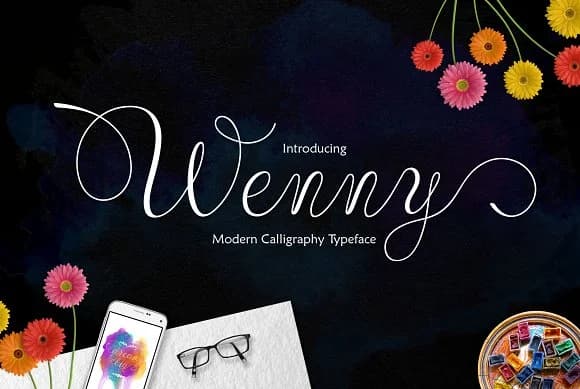
Wenny Script Font by Jamalodin is a flowing handwritten script that captures genuine hand-lettered warmth and approachability. Its organic letterforms work beautifully for designers seeking personality in their typography without sacrificing legibility or elegance. The smooth, natural strokes make this typeface equally at home in sophisticated branding projects and casual creative endeavors, offering flexibility across diverse design contexts. This versatile script excels across numerous applications. Wedding invitation suites benefit from its romantic sensibility, while personalized thank-you cards and boutique packaging showcase its authentic character. Etsy sellers use Wenny Script for product labels and packaging that command attention in crowded digital storefronts. Stationery design, from monogram projects to gallery wall prints, gains immediate character through the typeface's handcrafted quality. Social media graphics, particularly for lifestyle, wellness, and artisanal brands, communicate genuine warmth through its flowing letterforms. Beyond graphics, Wenny Script's compatibility with vinyl cutting machines makes it valuable for DIY crafters working on custom apparel, decorative home signage, and personalized gifts. The clean letter construction ensures precise cuts and professional results every time you use it. Whether you're a seasoned designer or enthusiast exploring hand-lettered aesthetics, this typeface consistently delivers the warmth and personality your projects deserve. Discover Wenny Script Font on Creative Fabrica and bring handwritten charm to your next creative venture.
Wenny Script Font is a script font that shines as a display or heading face. Pair it with a clean sans-serif or serif font for body text β the contrast creates a clear hierarchy while the two styles stay balanced and easy to read.
Wenny Script Font
by Jamalodin